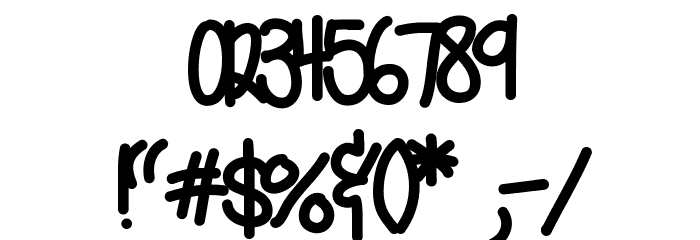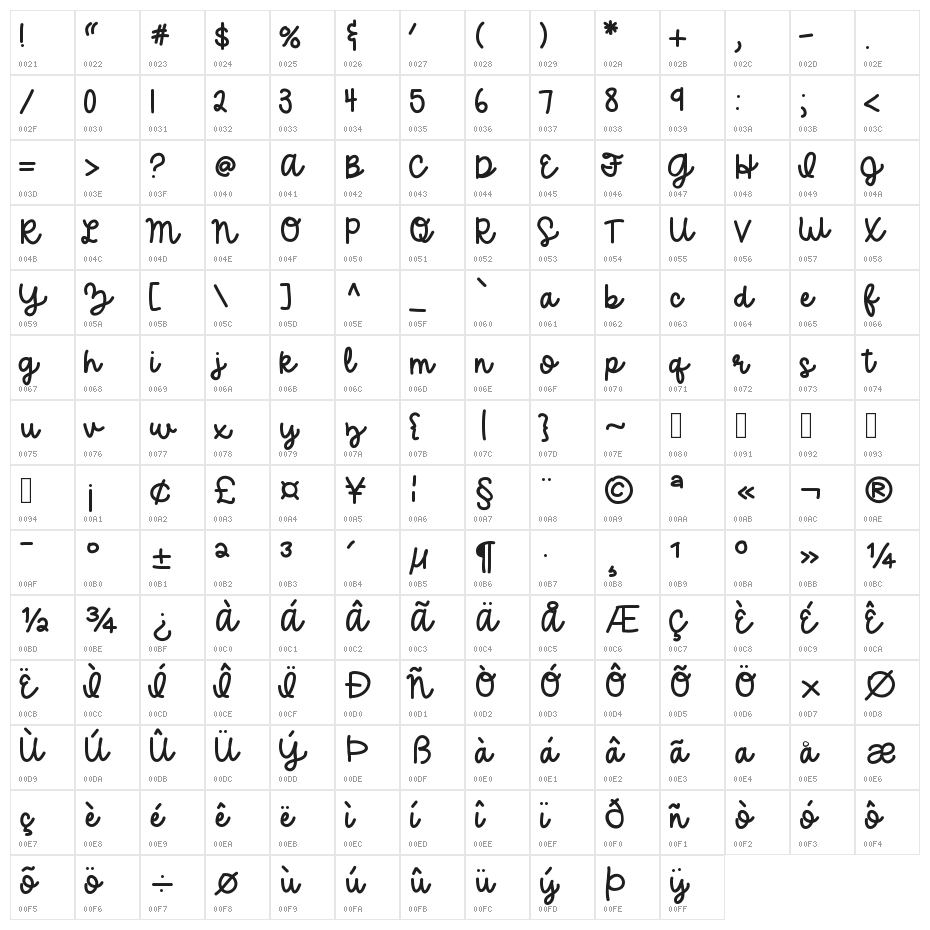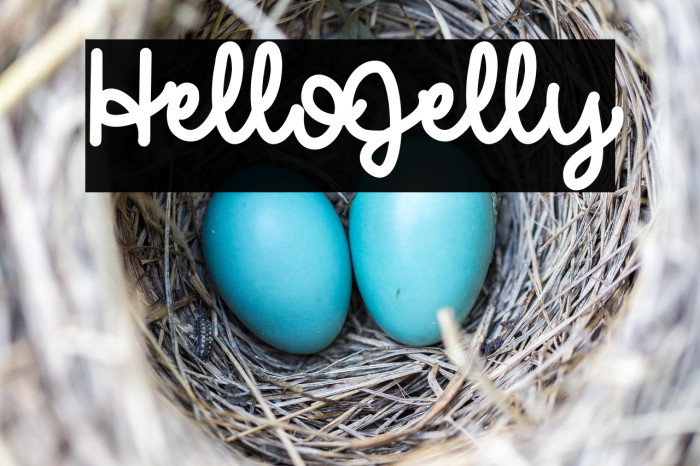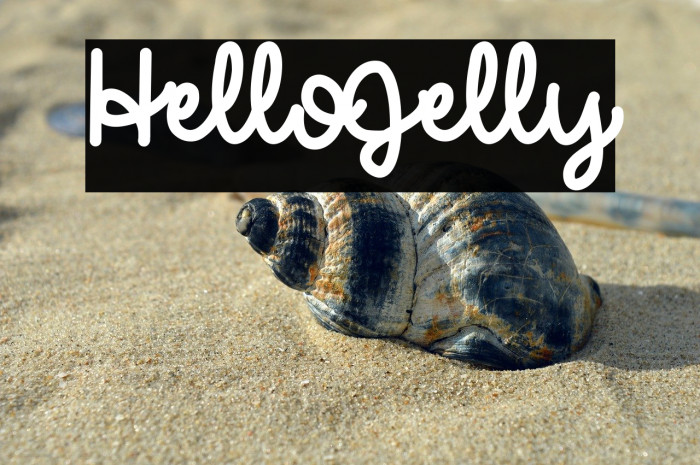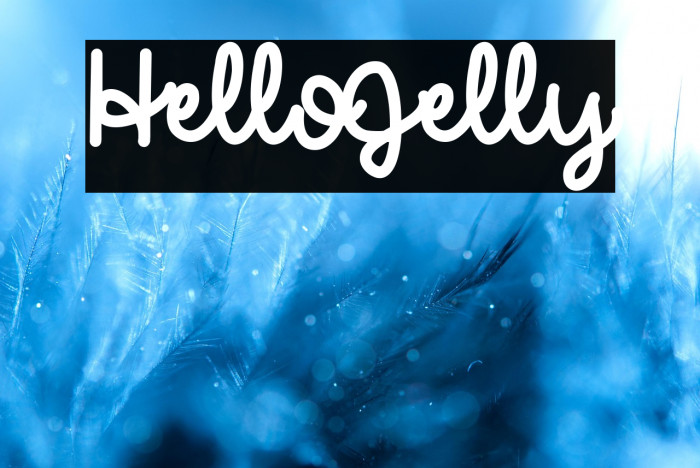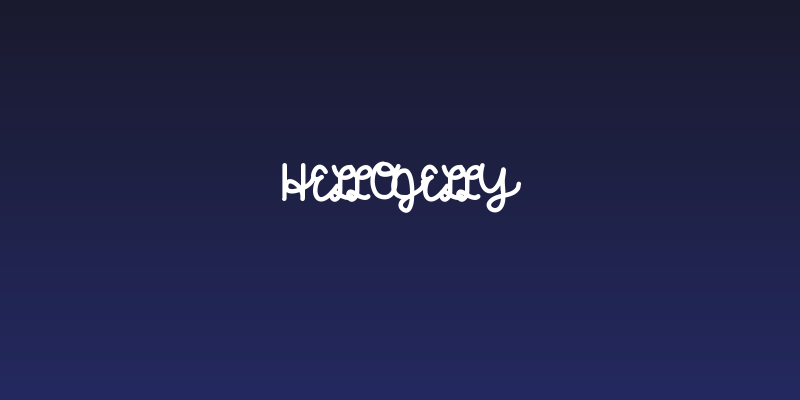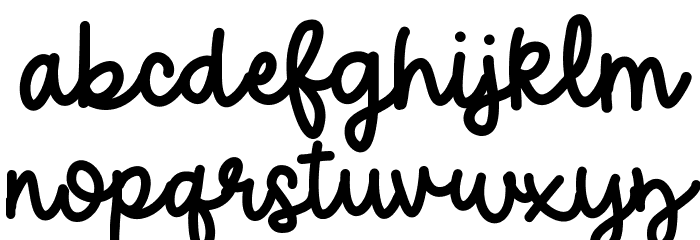
HelloJelly Font
HelloJelly Description
This font features a playful and casual handwritten style, characterized by its smooth, flowing curves and connected letters. The uppercase and lowercase letters maintain a consistent style, with rounded edges and a slight slant that adds to its informal appearance. The numbers and special characters are equally playful, with a consistent stroke width that ensures readability. The overall design is approachable and friendly, making it ideal for projects that require a personal touch.
| Use Case | Logos, Invitations, Social Media Graphics |
| Proposed Projects | Ideal for greeting cards, invitations, personal branding, and social media graphics. |